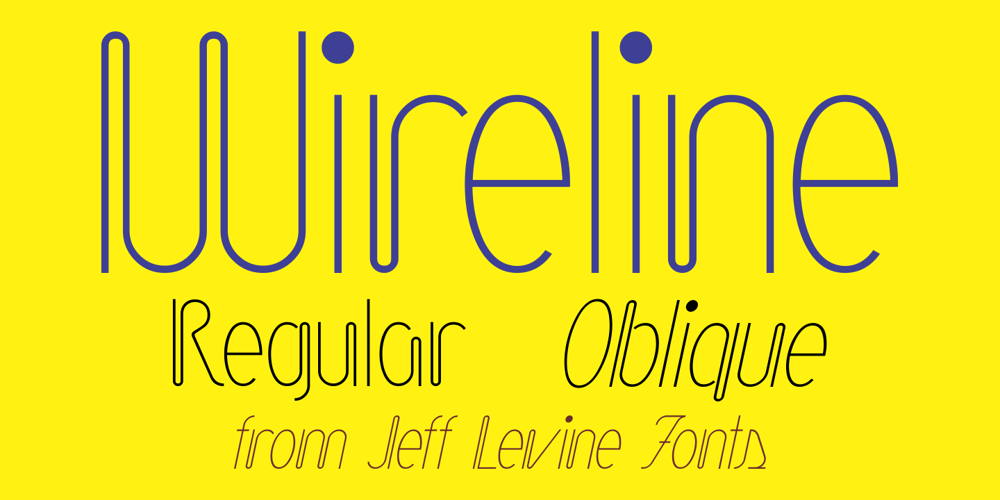
Wireline JNL
Wireline JNL font
Wireline JNL Font Family was designed by Jeff Levine and published by Jeff Levine. Wireline JNL contains 2 styles and family package options. Inspired (in part) by a vintage photo of a storefront neon sign for Cushman’s Furs, Wireline JNL is a thin monoline font with the appearance of bent wire characters.The font is available in both regular and oblique versions.